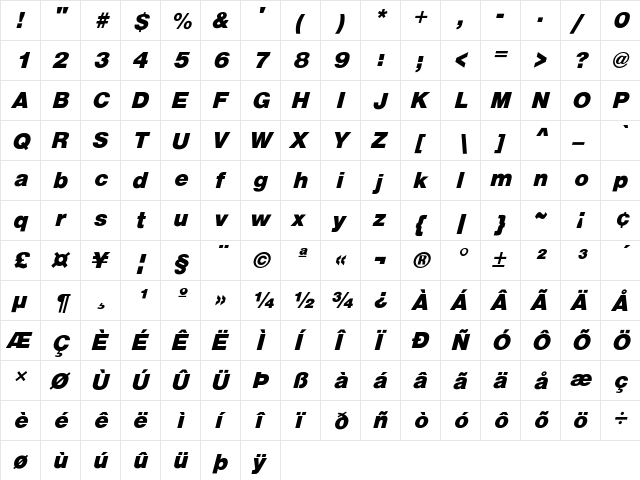
HelveticaObl-Heavy Regular
Design Context for HelveticaObl-Heavy Typeface
HelveticaObl-Heavy is a composed and adaptable typeface that performs quietly and consistently across a wide range of design contexts.
Pro Tip: Pair HelveticaObl-Heavy with a font of contrasting weight or personality to build a more expressive typographic hierarchy.